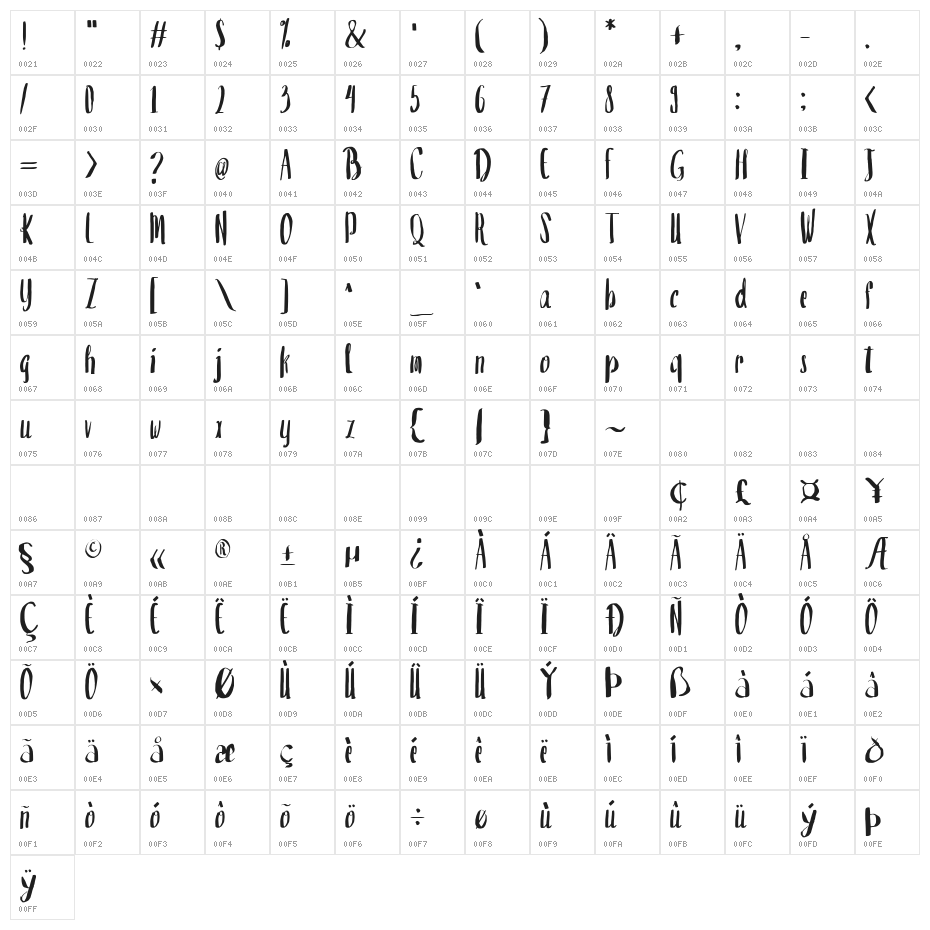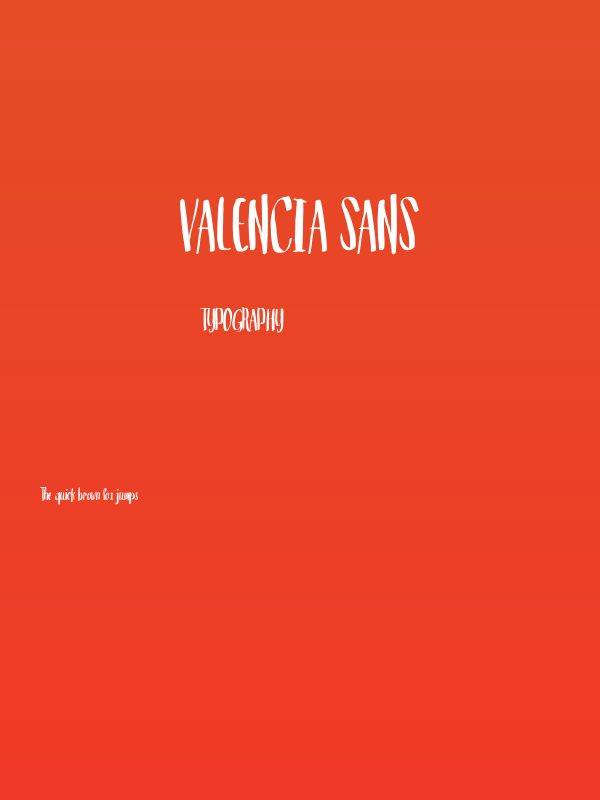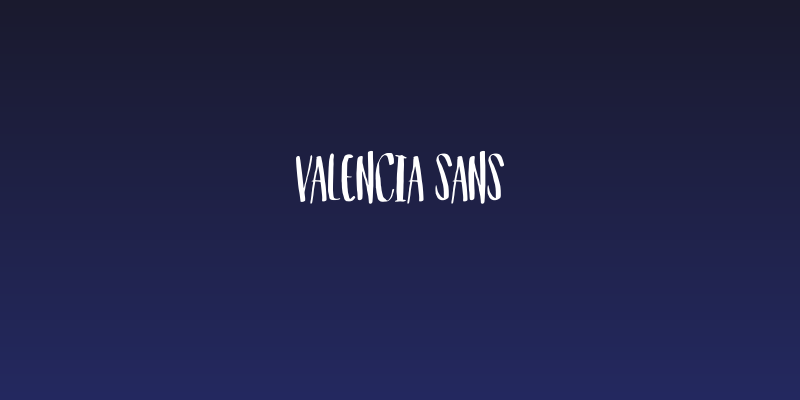
valencia sans Font
valencia sans Description
This font features a bold and expressive style with a hand-drawn appearance. The characters are tall and narrow, with a playful and artistic flair that gives them a unique personality. The strokes are uneven, adding a dynamic and lively feel to the text. The uppercase letters are particularly striking, with exaggerated curves and angles that create a sense of movement. The lowercase letters maintain the same whimsical quality, with a slightly more subdued presence. Numbers and special characters are consistent with the overall design, ensuring a cohesive look across all text elements. This font is perfect for projects that require a touch of creativity and individuality.
| Use Case | Headlines, Logos, Artistic designs |
| Proposed Projects | Ideal for creative projects such as posters, invitations, branding, and artistic designs. |